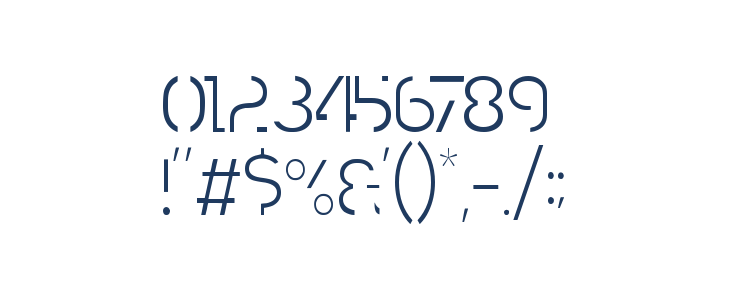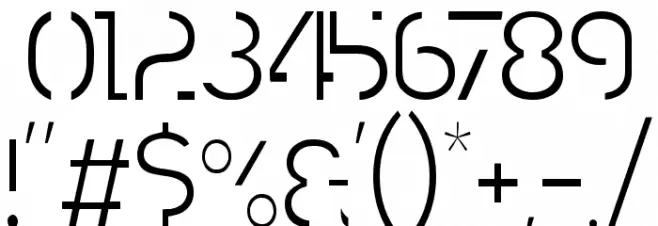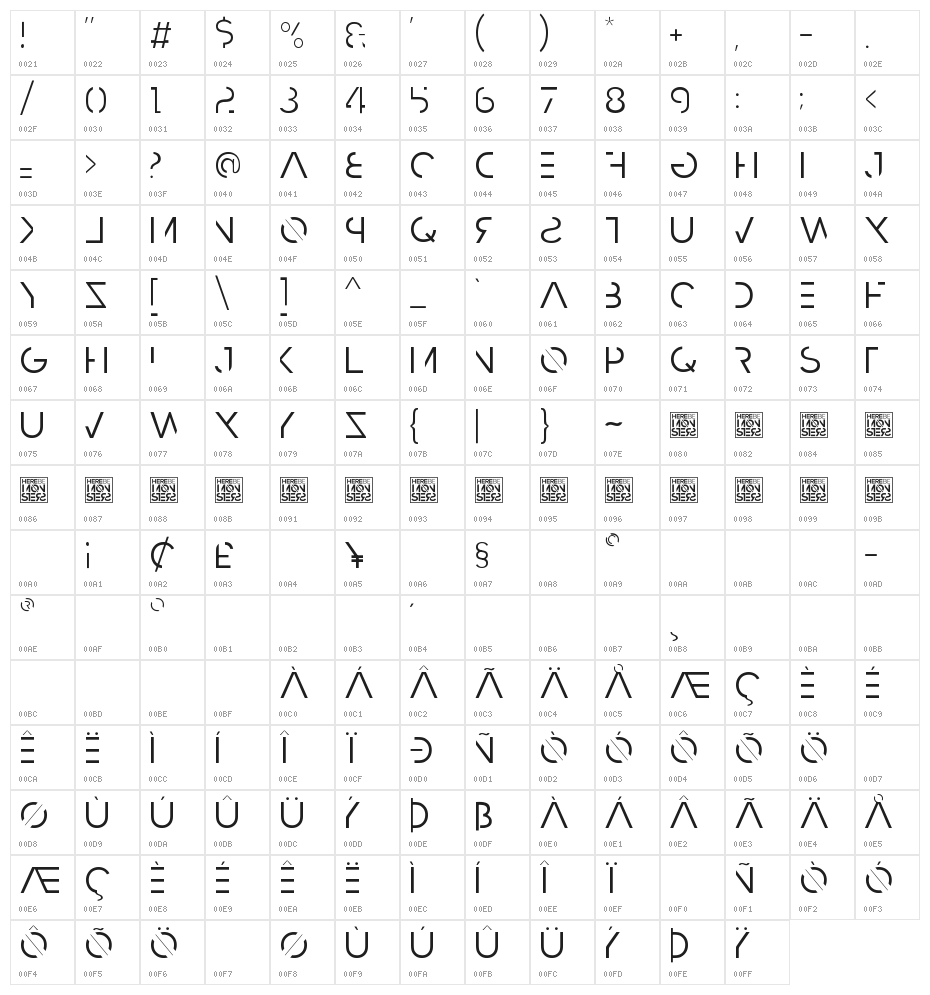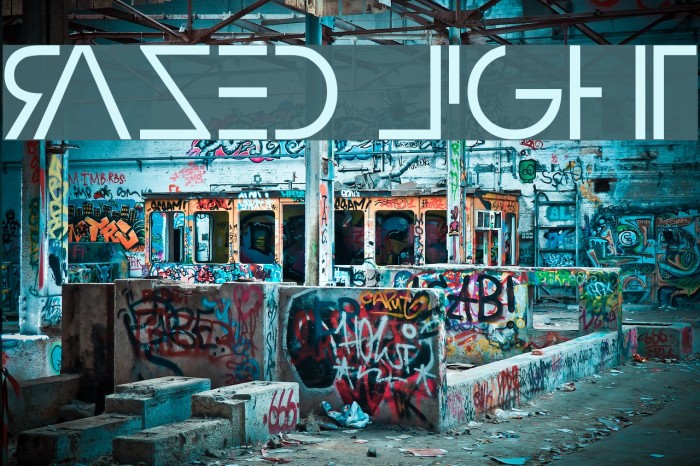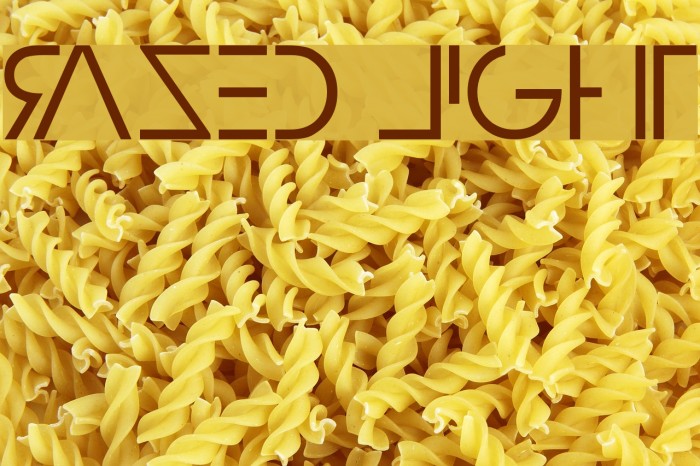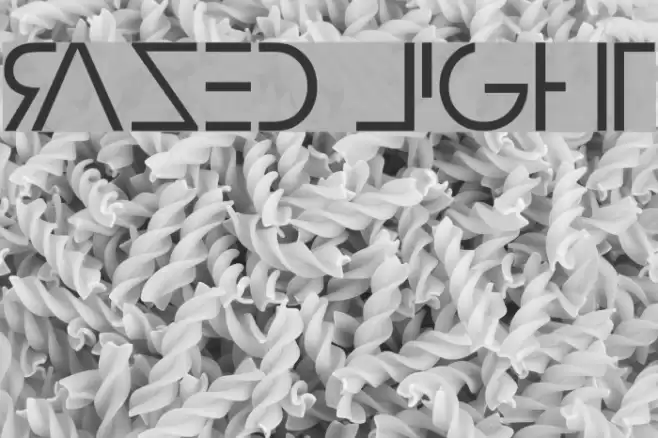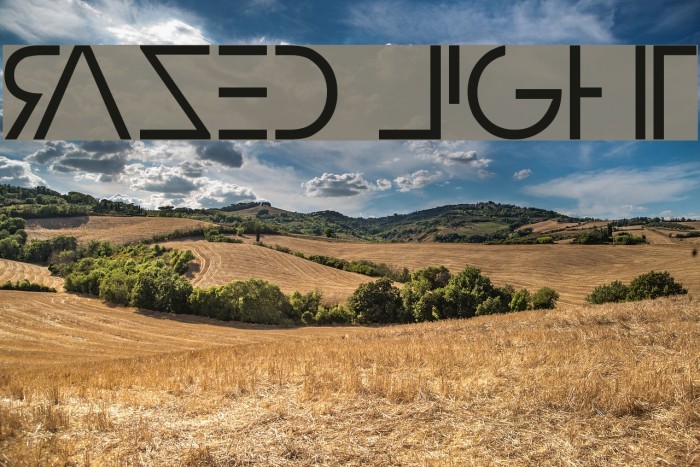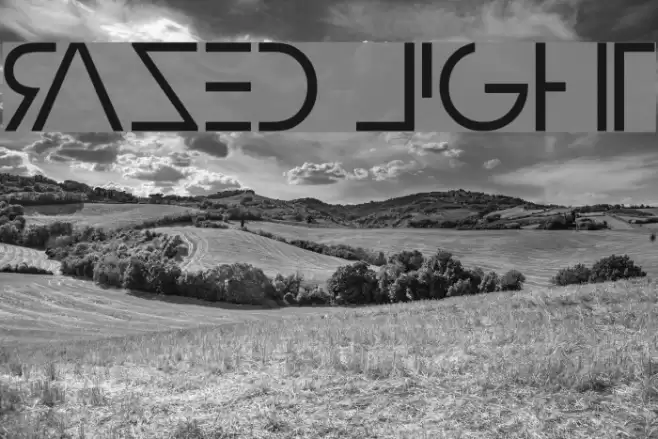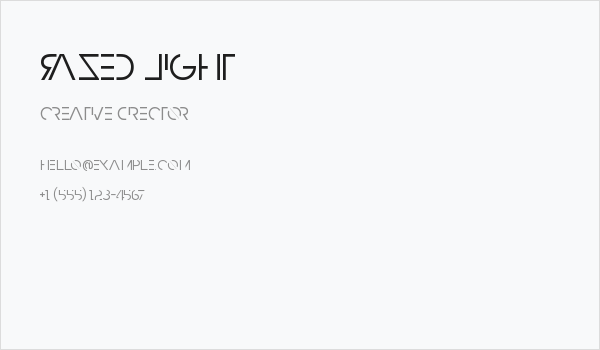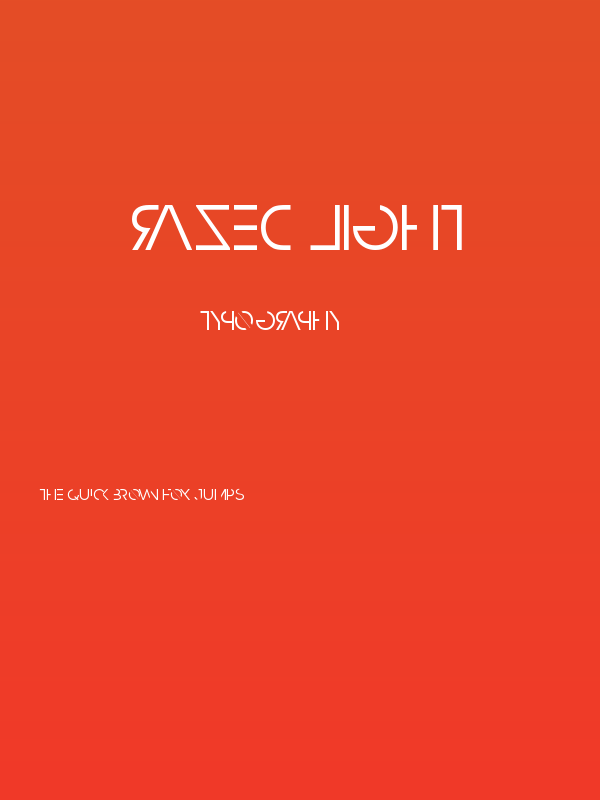
Razed Light Font
Razed Light Description
This font features a futuristic and geometric design, characterized by its sharp angles and clean lines. The letters are constructed with a minimalist approach, often incorporating diagonal cuts and unique shapes that give it a distinct, modern appearance. The uppercase and lowercase letters maintain a consistent style, with a focus on symmetry and balance. Numbers and special characters follow the same design principles, ensuring a cohesive look across all elements. The font's aesthetic is ideal for projects that require a contemporary and edgy feel.
| Proposed Projects | Ideal for tech branding, sci-fi posters, modern logos, and digital interfaces. |